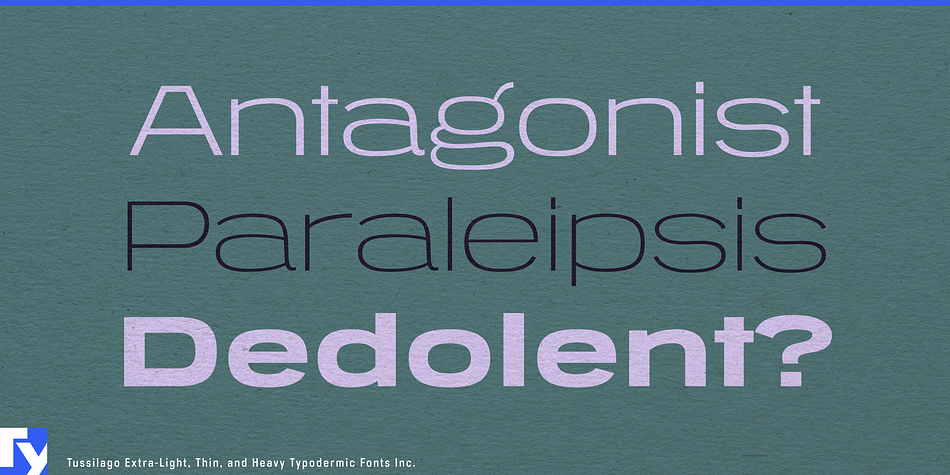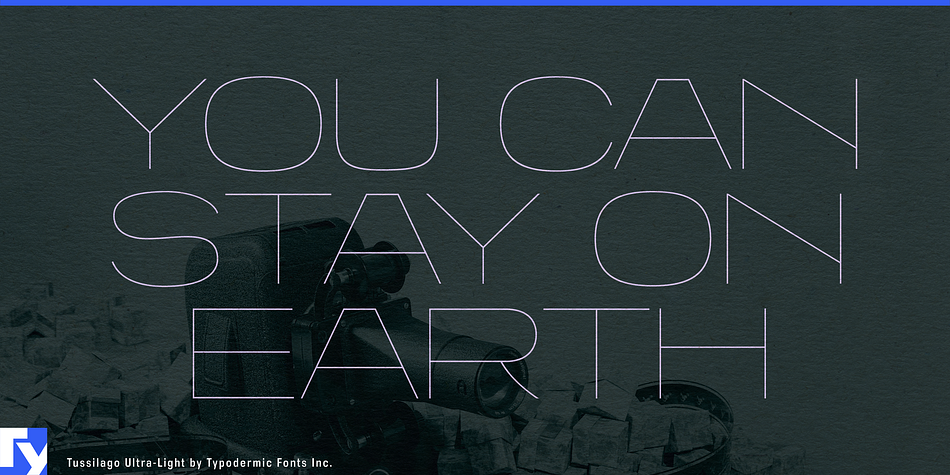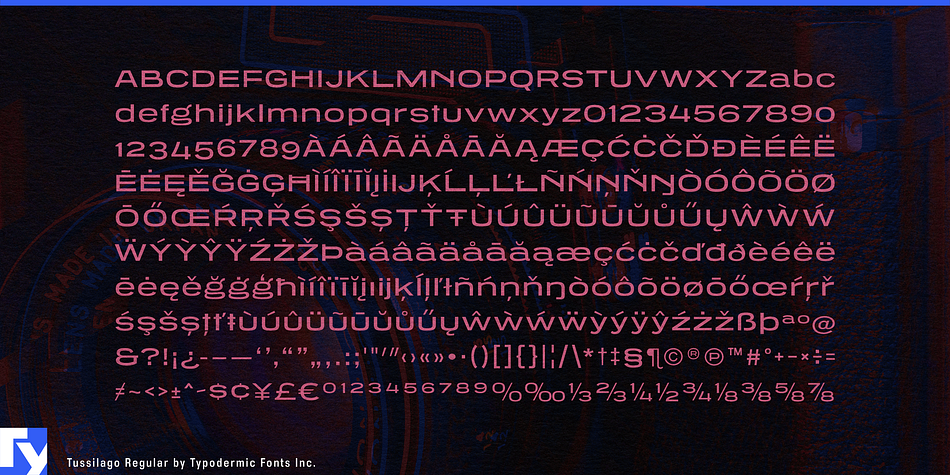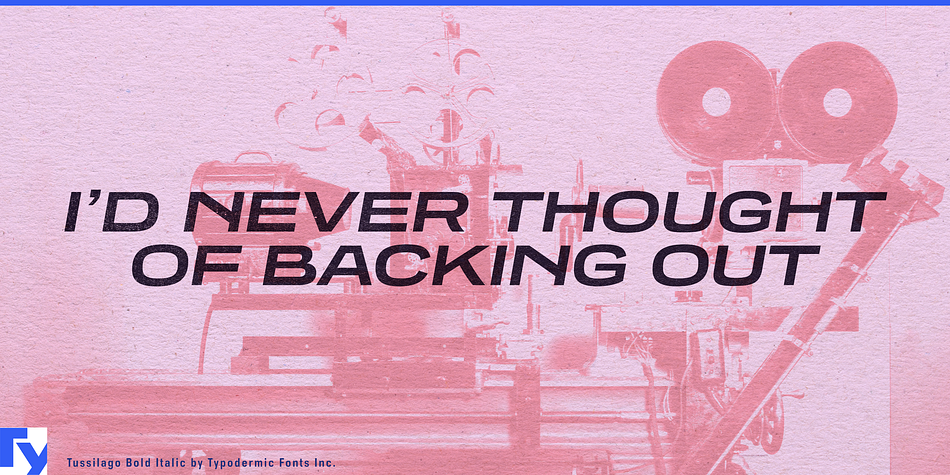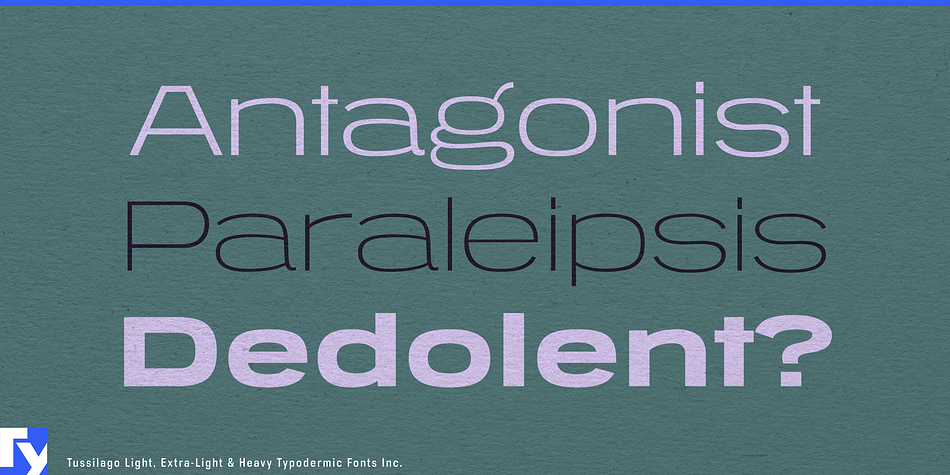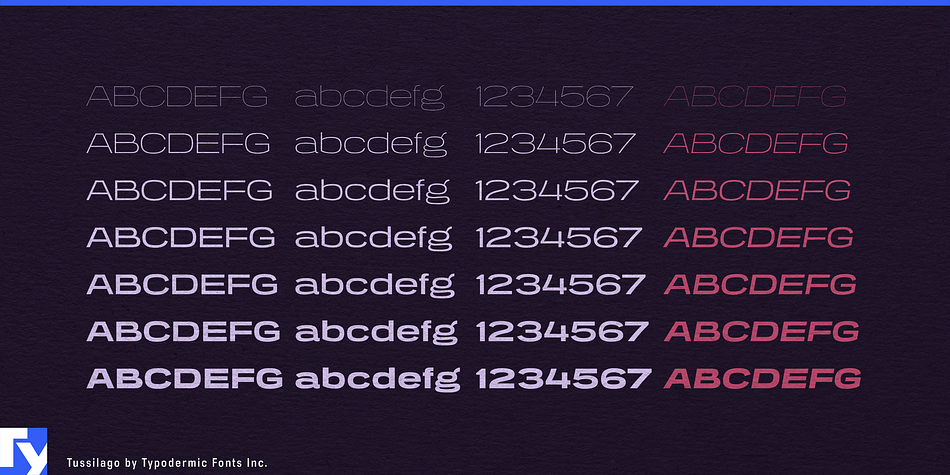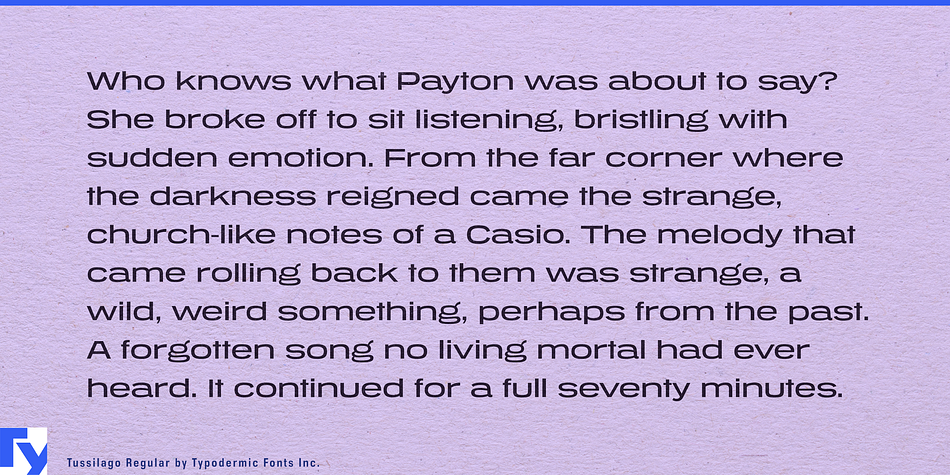
Tussilago is a display sans font family. This typeface has two styles and was published by Typodermic Fonts Inc.
Tussilago is a stalwart, outstretched sans-serif typeface. Some mid-twentieth century style fonts come across as neutral, but not this one. Tussilago’s burly letterforms will give your words a cool-headed, unapologetic voice of authority. The Tussilago family comes with seven weights, italics and old-style/lining numerals.